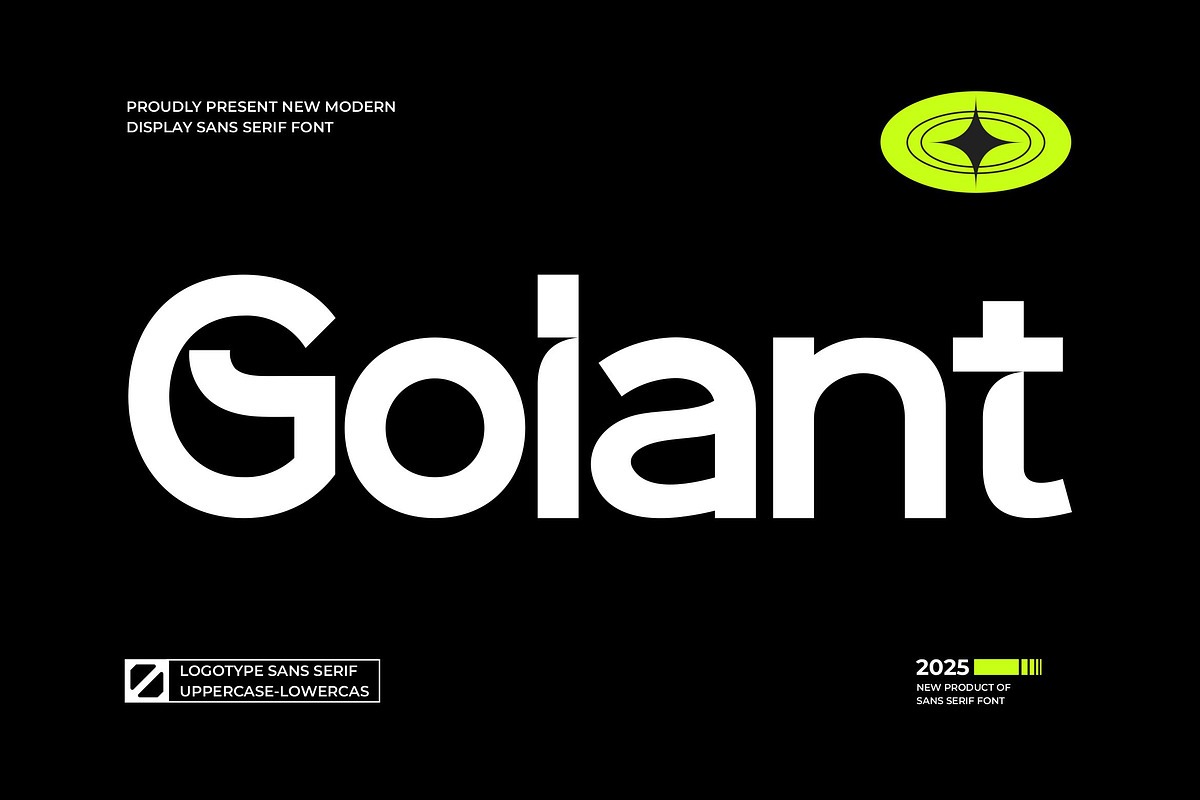
Golant Font
Golant Font is a versatile font designed to adapt beautifully across different design styles, offering dependable readability and balance. Golant sans serif font. This modern sans serif font commands attention with its strong lines, confident weight, and striking simplicity. Designed for impact, it delivers clarity and power without sacrificing elegance. Its geometric structure and clean edges make it versatile for headlines, branding, posters, and digital design—anywhere a bold statement is needed. Perfect for modern brands seeking strength and style, this font embodies authority, creativity, and timeless modernity.